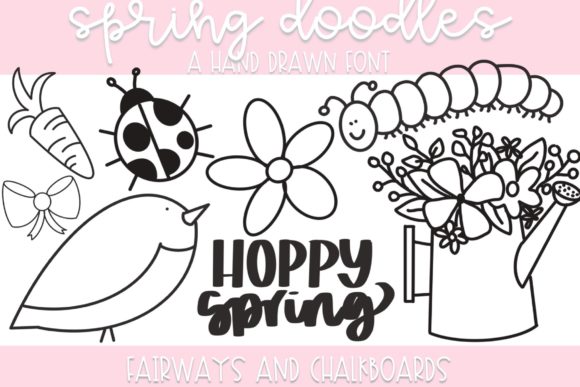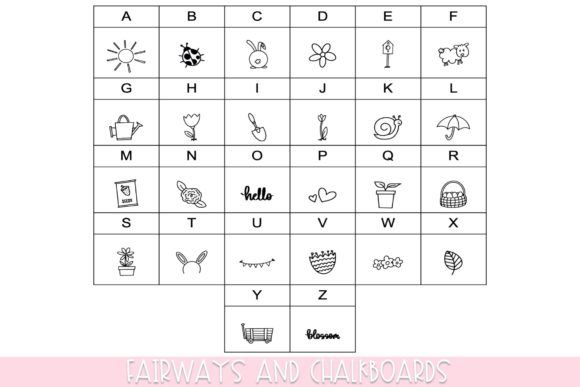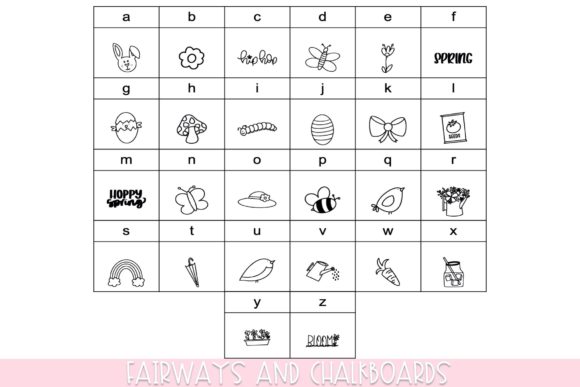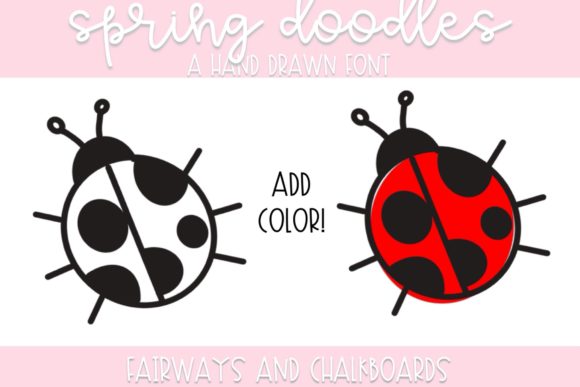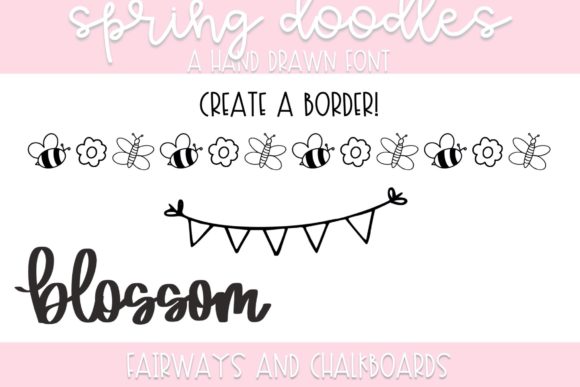
Spring Doodles Font
“Spring Doodles” is a lovely dingbats font that offers a playful and whimsical way to add a touch of spring to your projects. With its collection of delightful spring-themed doodles and icons, this font allows you to infuse your worksheets, newsletters, and other designs with a vibrant and seasonal flair.
The charming and lighthearted nature of “Spring Doodles” makes it perfect for various educational and creative contexts. Whether you’re creating worksheets for children, designing spring-themed newsletters, or adding decorative elements to your digital or print materials, this font can bring a sense of joy and freshness to your designs.
The doodles and icons in “Spring Doodles” encompass a range of spring-related elements such as flowers, butterflies, birds, raindrops, and more. These whimsical illustrations can be used as standalone decorative elements or incorporated into larger compositions, allowing you to create visually engaging designs that capture the essence of the season.
To make the most of “Spring Doodles,” consider the layout and composition of your projects. Experiment with combining the doodles in creative ways to create borders, dividers, or focal points. You can also mix and match the doodles with other fonts and graphics to create unique and personalized designs.
Whether you’re designing worksheets for students, creating newsletters for a community organization, or adding a touch of spring to your personal projects, “Spring Doodles” offers a delightful and versatile set of icons to enhance your designs.
By incorporating “Spring Doodles” into your designs, you can infuse your projects with the vibrant and playful spirit of spring, making them more visually appealing and engaging for your audience. Enjoy the creative possibilities that this lovely dingbats font brings and let it add a delightful touch to your spring-themed materials!